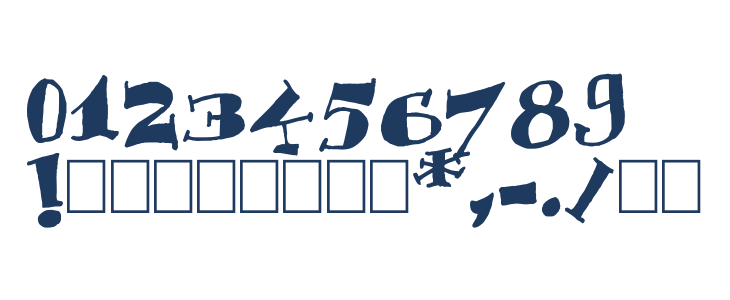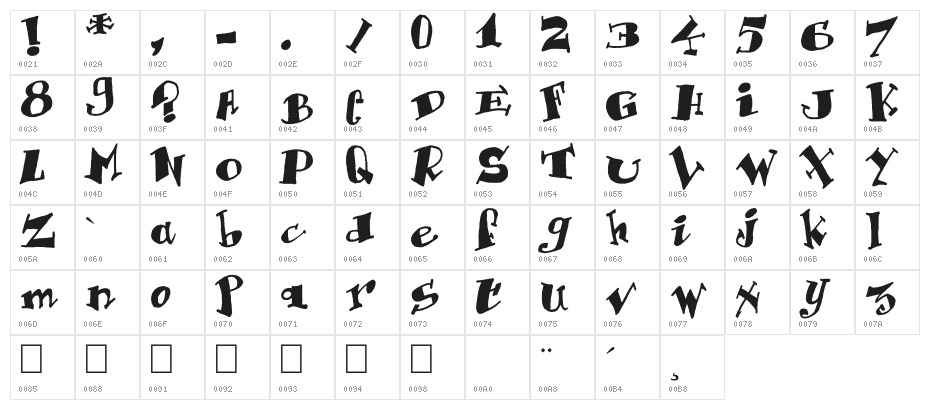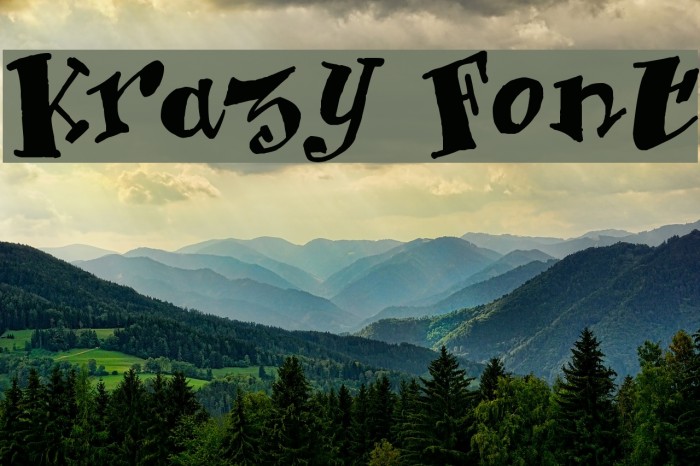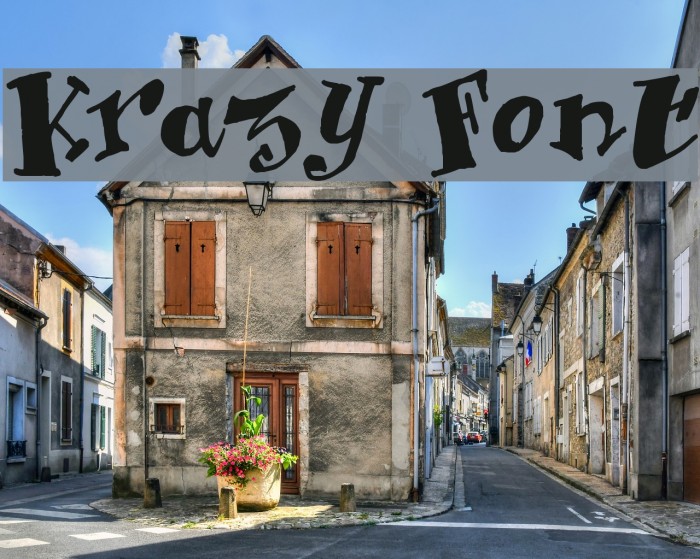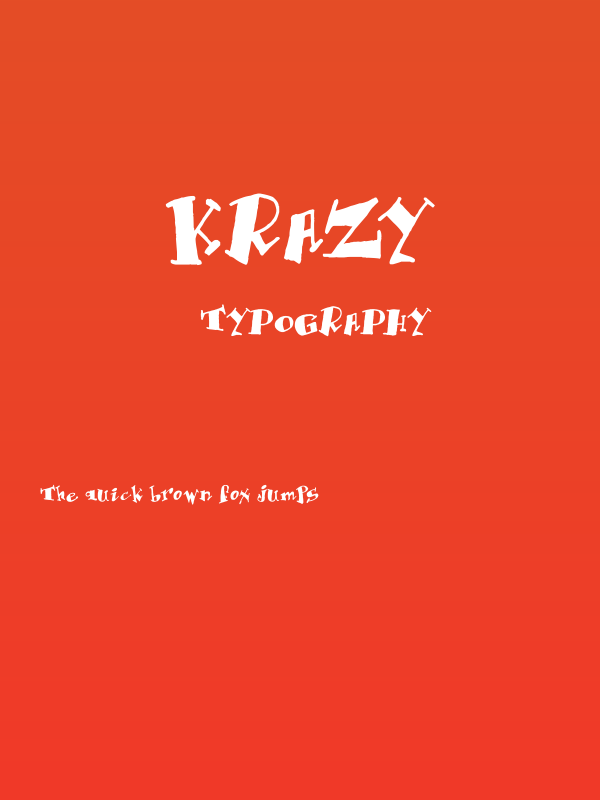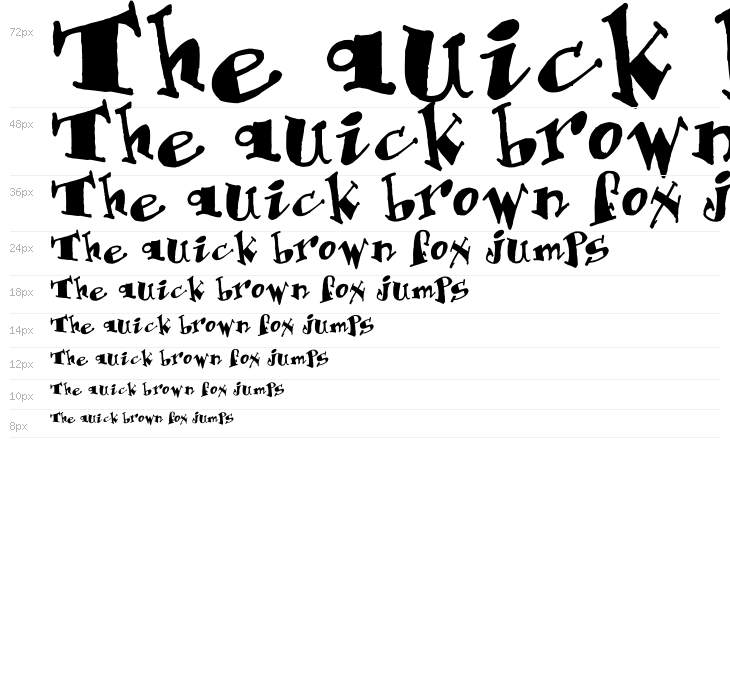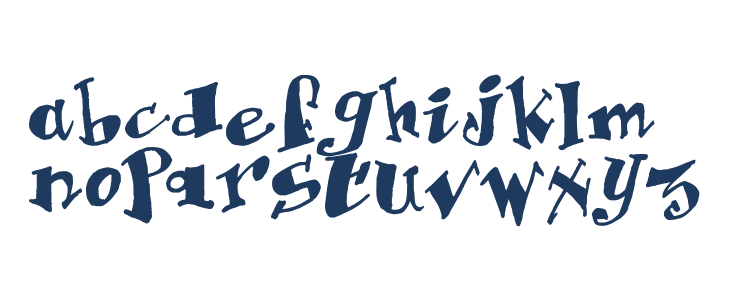
Krazy Font
Krazy Description
This font features a playful and chaotic design, with each character exhibiting unique and irregular shapes. The strokes are bold and uneven, giving a sense of movement and energy. The uppercase letters are particularly dynamic, with exaggerated serifs and varying angles. The lowercase letters maintain a similar whimsical style, ensuring consistency throughout the typeface. Numbers and special characters follow the same lively aesthetic, making the font suitable for creative and unconventional projects. Its distinct style captures attention and adds a fun, artistic touch to any design.
| Proposed Projects | Ideal for children's books, comic strips, playful branding, and creative posters. |